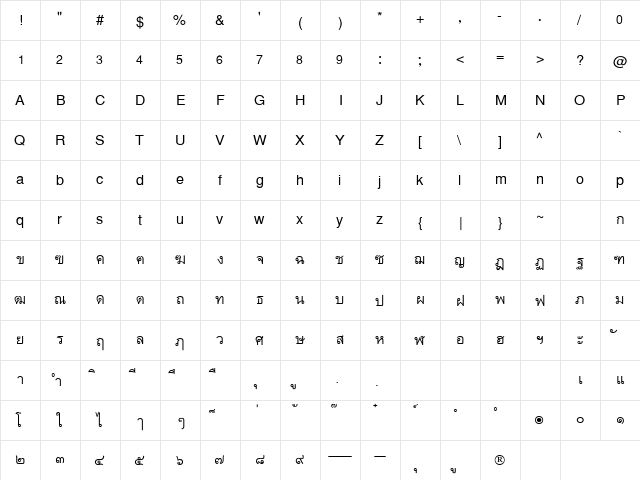
DBX ThaiText Regular Font Preview
DBX ThaiText Regular
Design Context for DBX ThaiText Typeface
DBX ThaiText is a composed and adaptable typeface that performs quietly and consistently across a wide range of design contexts.